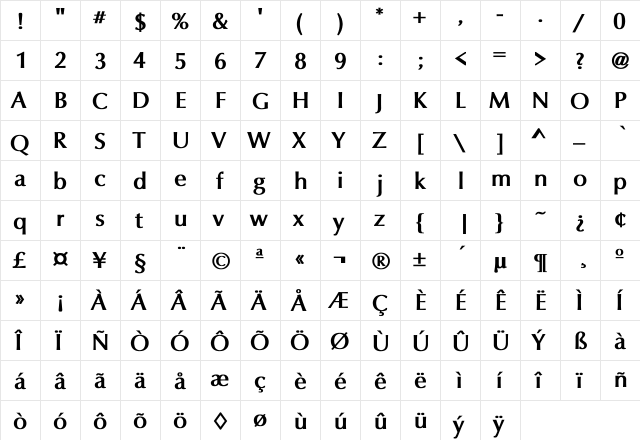
Lewellyn Bold
Design Context for Lewellyn Typeface
Lewellyn is a composed and adaptable typeface that performs quietly and consistently across a wide range of design contexts. The heavy weight commands attention and anchors typographic hierarchies.